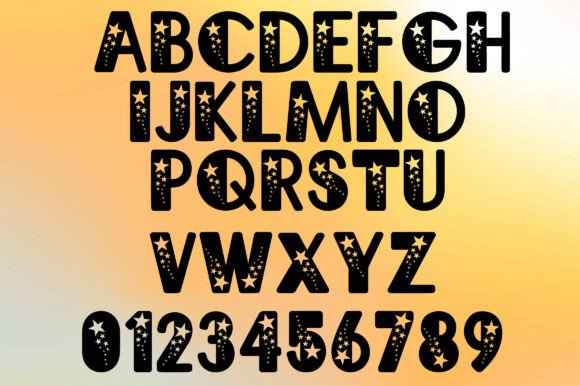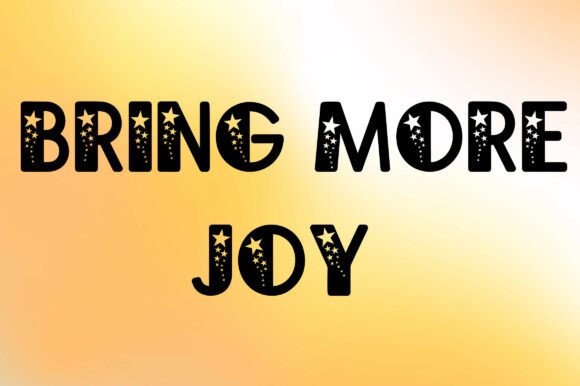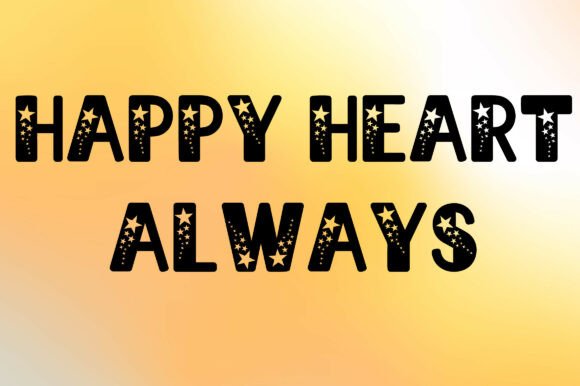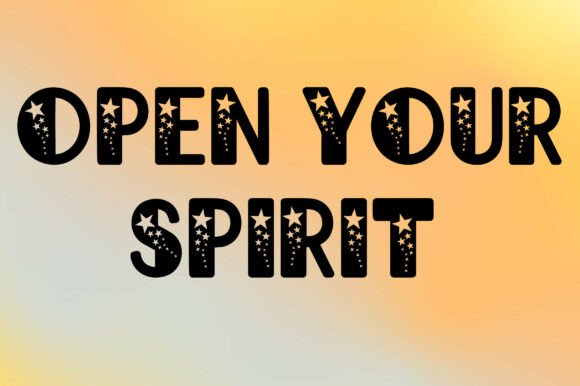
Introduction to Pimdao Font
Decorative Star Fonts is a fun and eye-catching typeface designed to bring a magical and creative touch to any project.
Featuring charming star-inspired details and a versatile decorative style, this font is perfect for logos, posters, branding, invitations, packaging, social media graphics, and more Designed with uppercase English letters A–Z and numbers 0–9, it adds personality, sparkle, and endless creative possibilities to help your designs shine with style and imagination.
Key Features of Pimdao Font
Why Choose Pimdao Font?
Pimdao Font offers exceptional quality and versatility, making it a valuable addition to your design toolkit. Whether you’re creating for personal projects or commercial use, Pimdao Font delivers professional results.